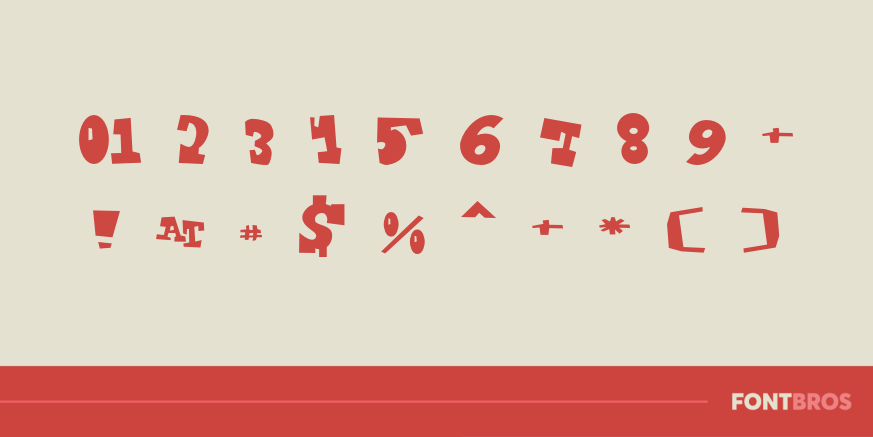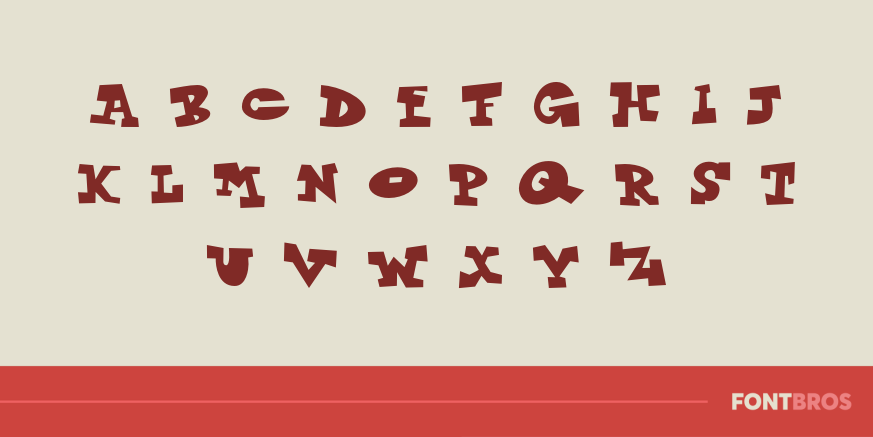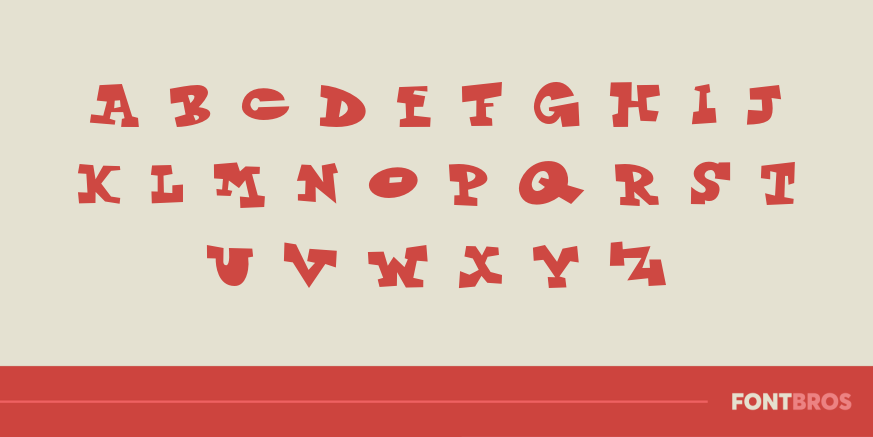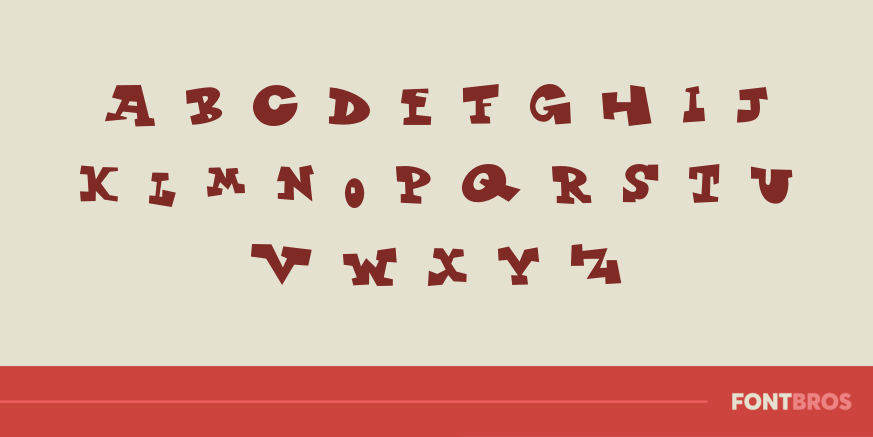
Finer Diner Downtown
Font Family by Font Diner
Head into the hard of Downtown when you're looking for something smooth and metropolitan with our Finer Diner Downtown bold and bouncy serif font.